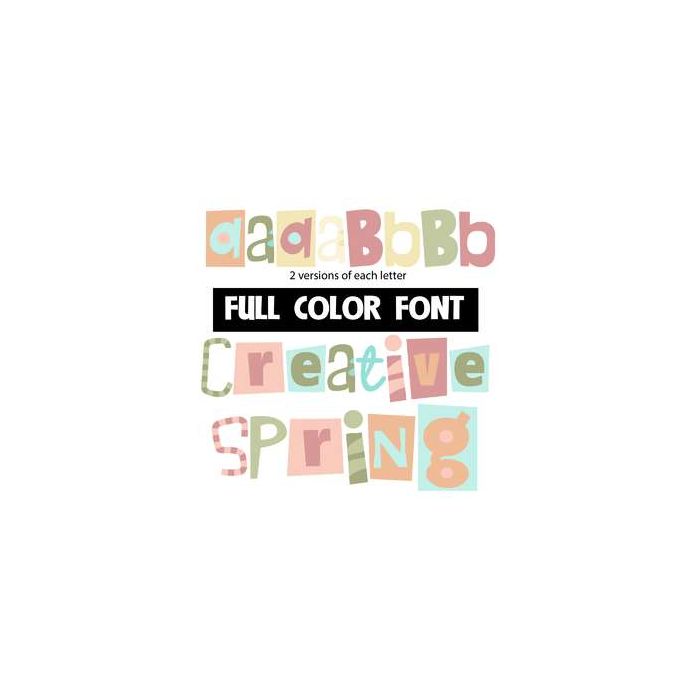
This full-color font features a spring-palette in crafty, creative lettering. There is an alt version of the upper and lowercases you can access through your system or Silhouette's glyph map.